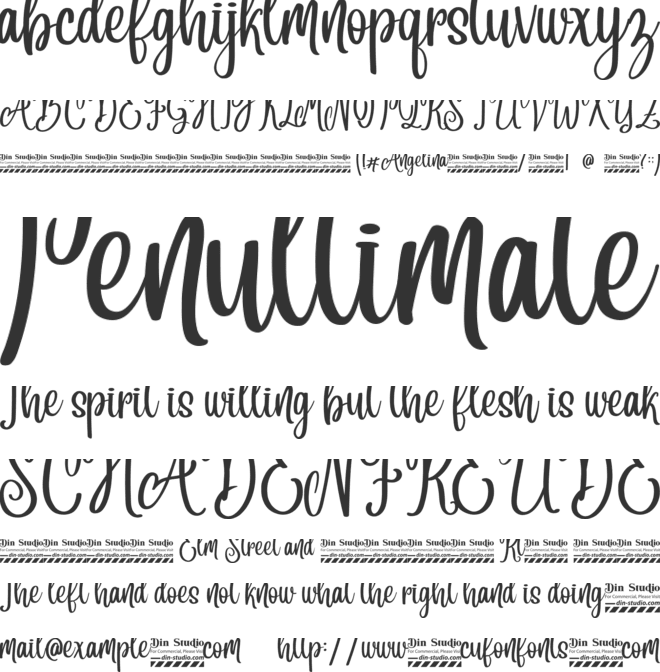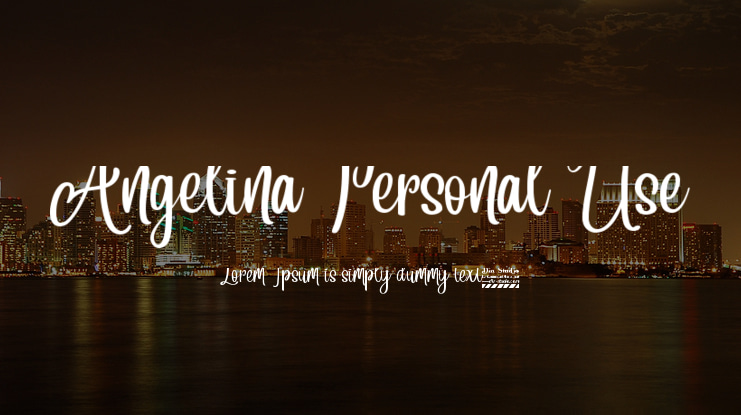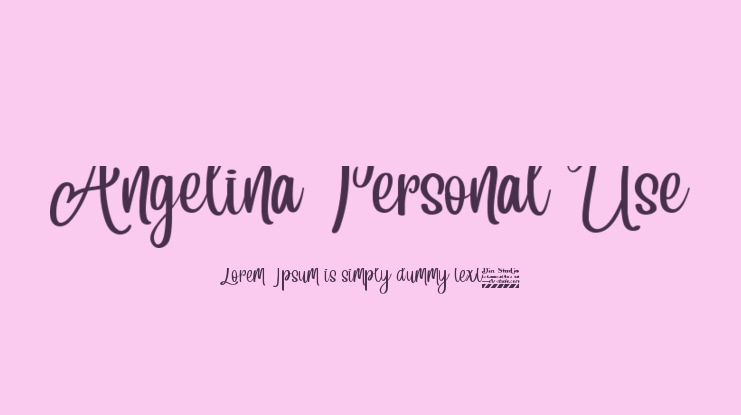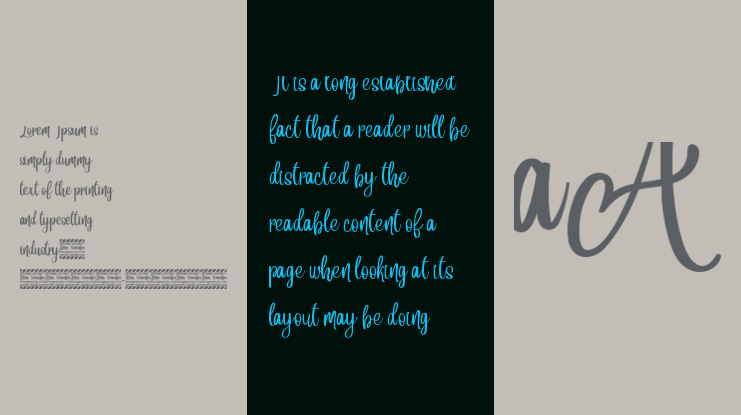
Introducing Angelina Script.
a beautiful handwritten font with a natural and modern style for your project design. This font is best used for weddings, branding, logotype, and quotes.
Features:
•Beautiful Ligatures
•PUA Encoded
•Multilingual Support
•Numerals and Punctuation
•Stylistic Alternates (b, d, f, g, h, i, j, k, l, t, y, z)
•Lovely Swash (a-z)
I hope your project design would be more beautiful with this Angelina Script.